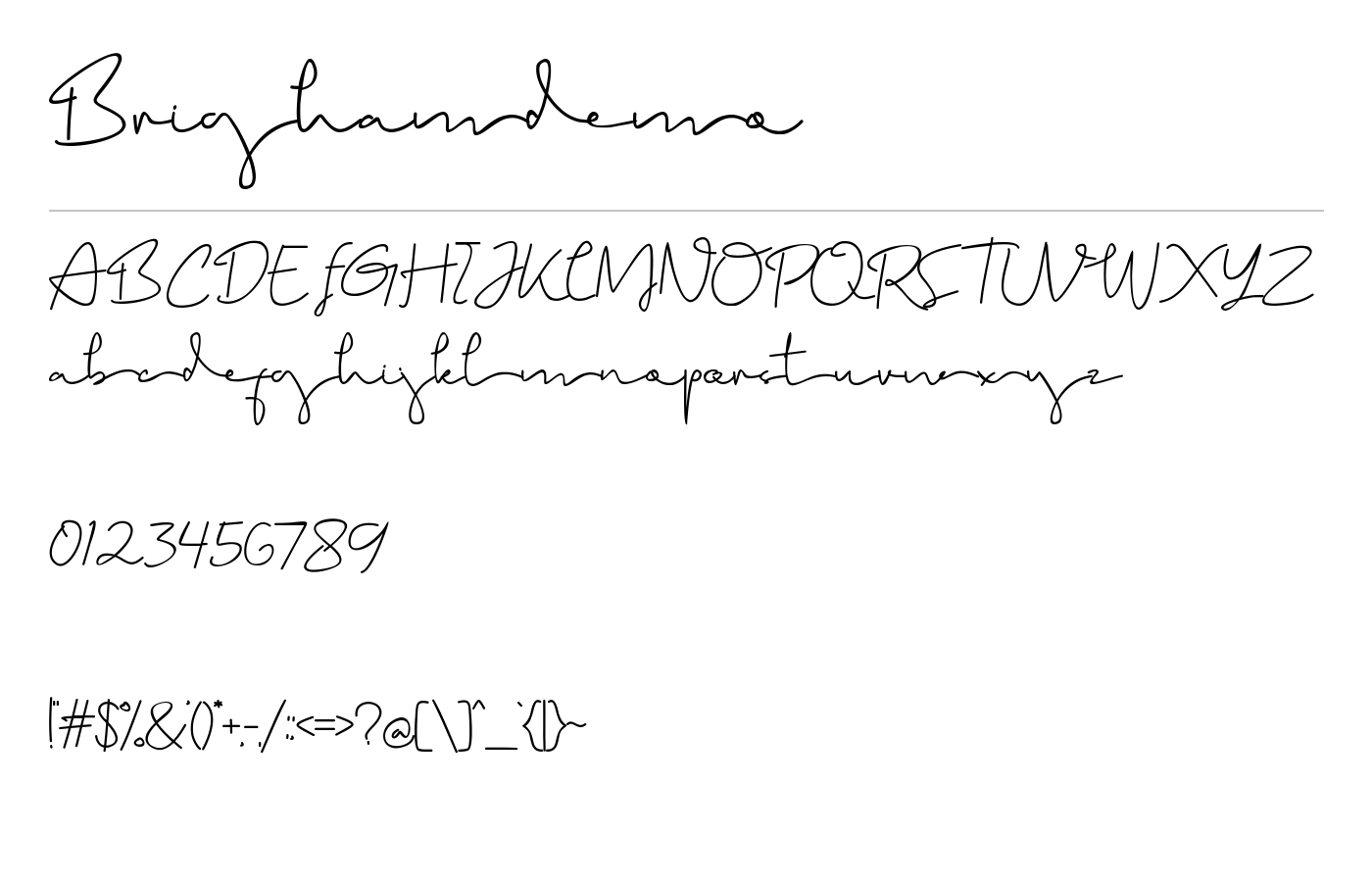
Brighamdemo is a delicate, handwritten script font with a light and airy feel, characterized by its slender strokes and casual, flowing letterforms. Its playful yet elegant style makes it ideal for creative projects like personal branding, invitations, and stylish packaging where a touch of personality and warmth is desired. This font shines best in headlines or decorative accents rather than long text, adding a unique and approachable charm to any design.
Brighamdemo Font
About Brighamdemo Font
| Font family | Brighamdemo Font |
| Designer | GlyphStyle 2019 |